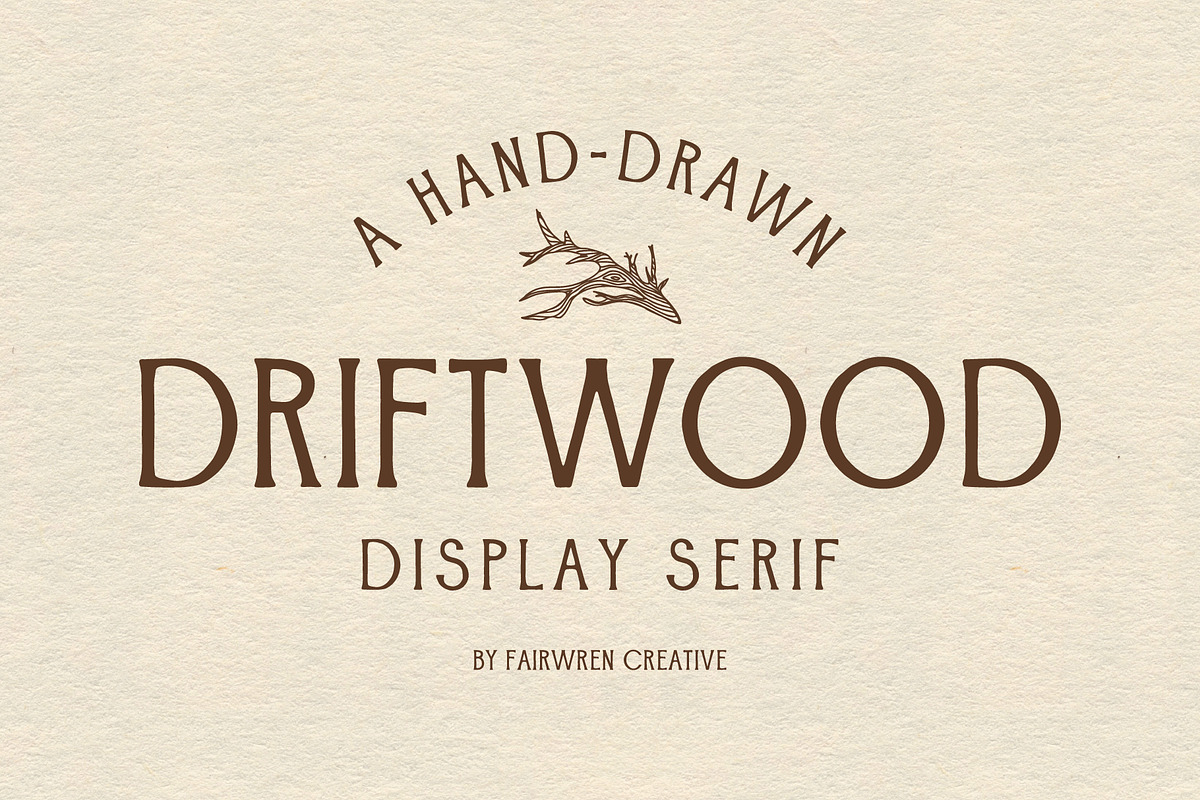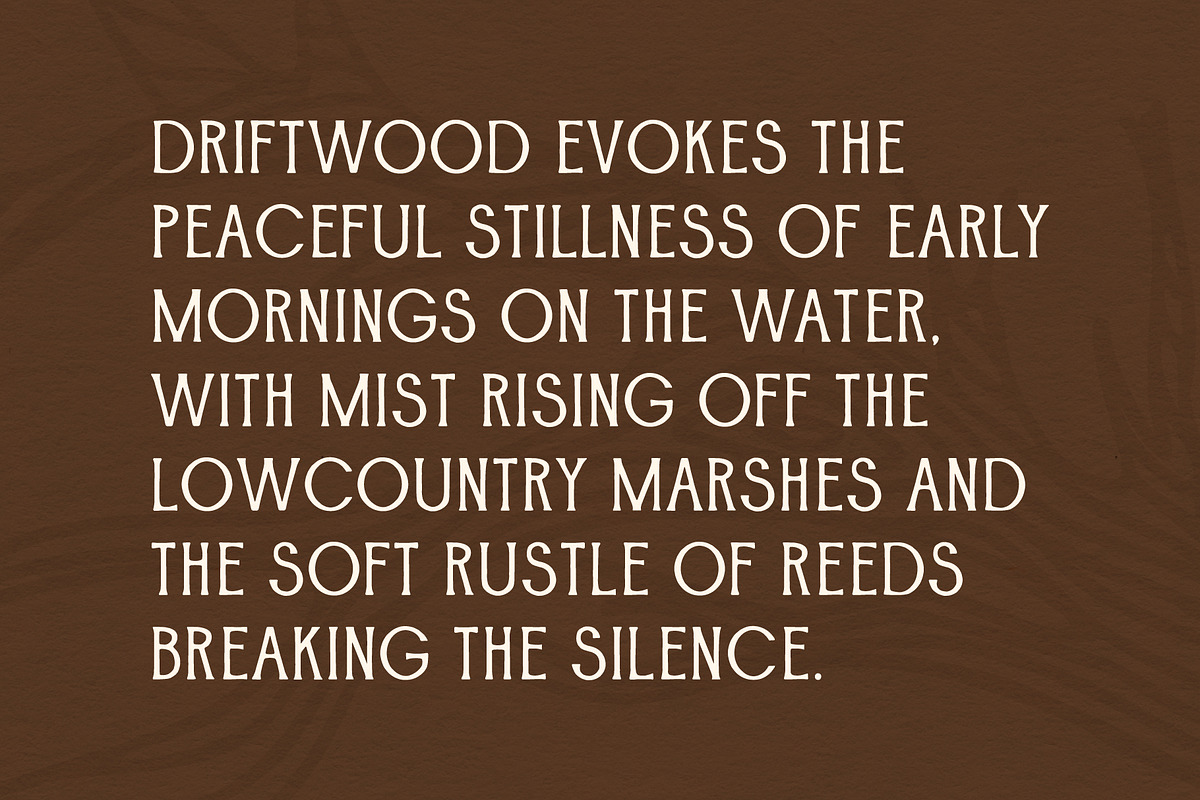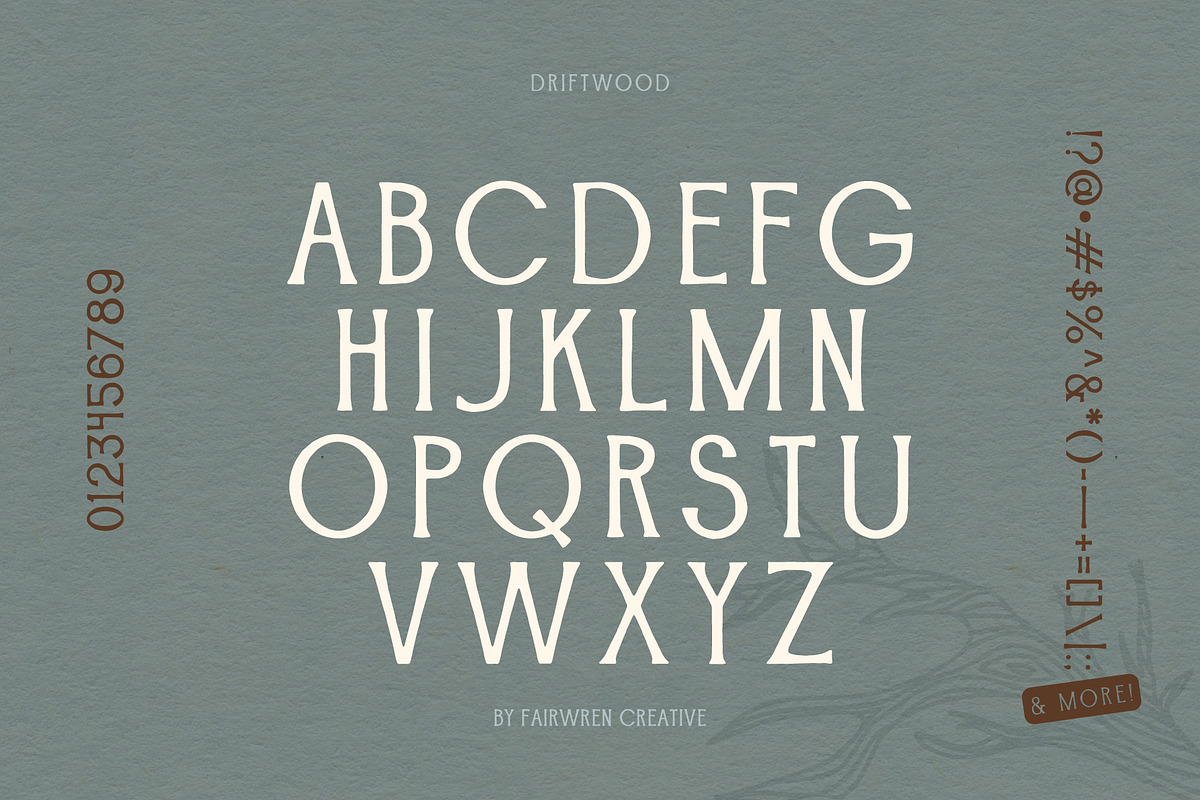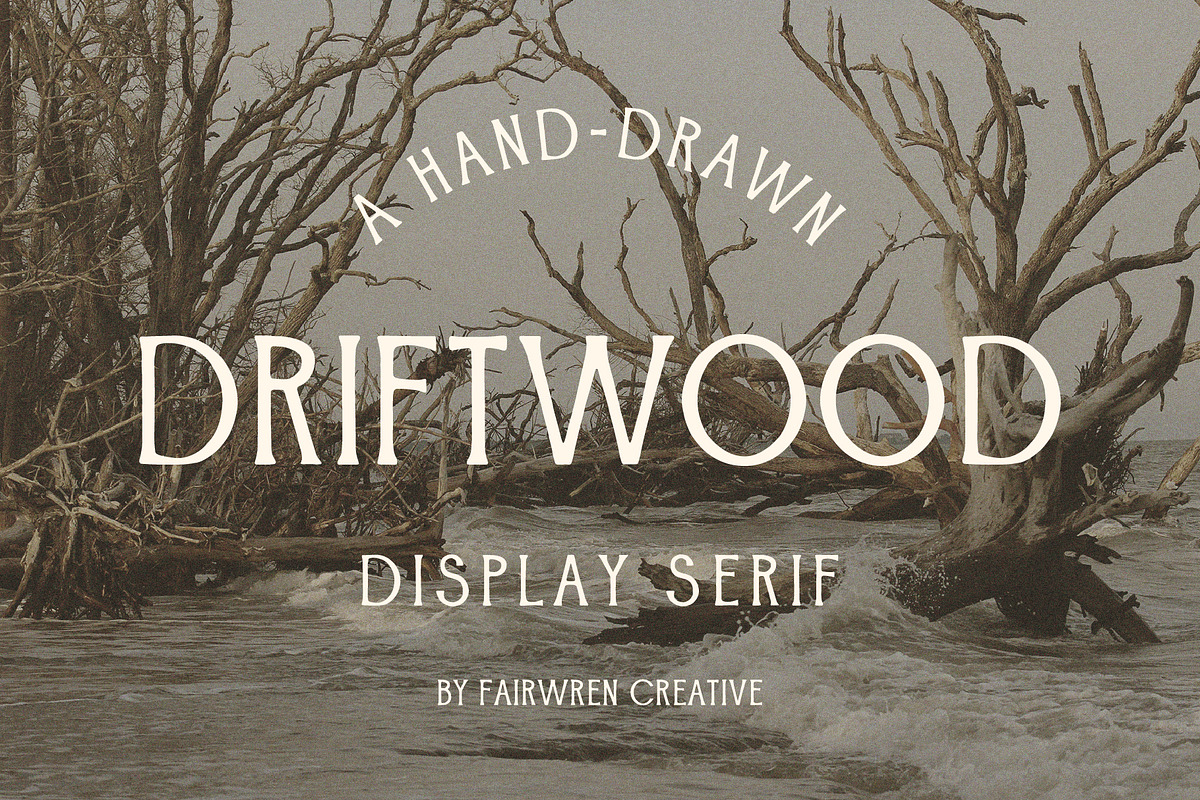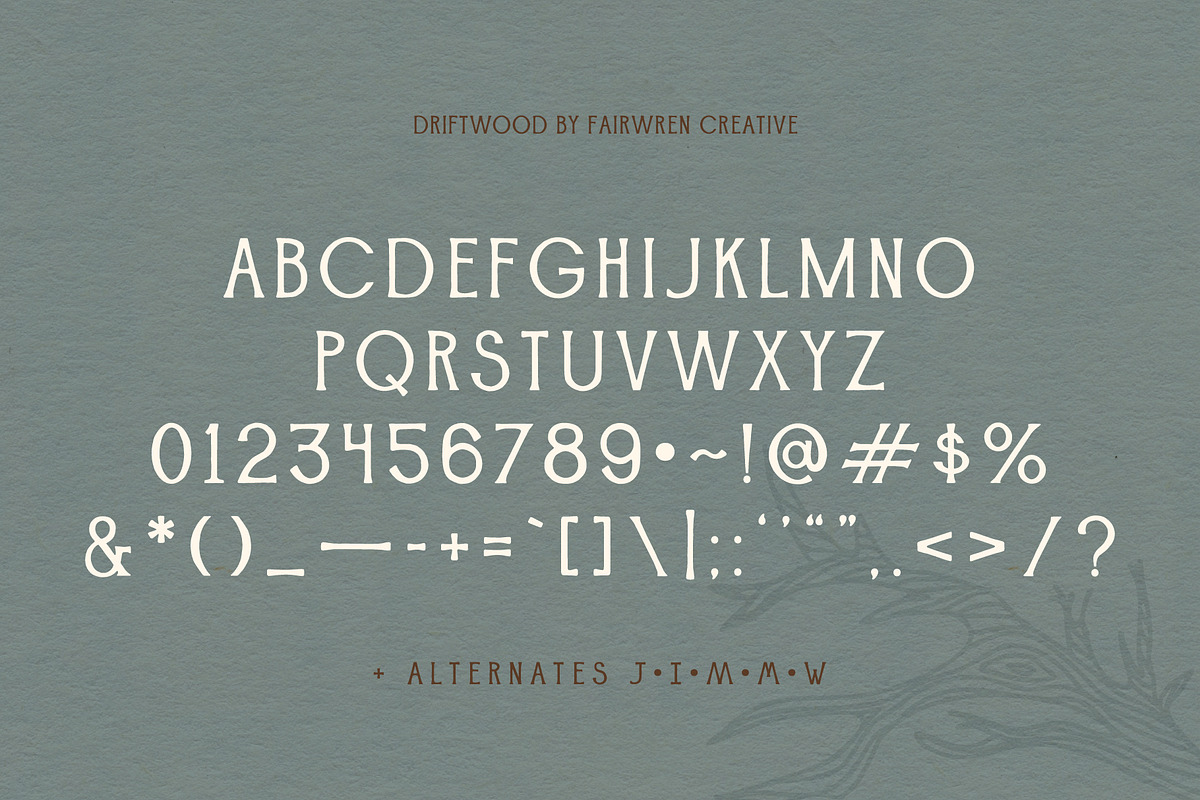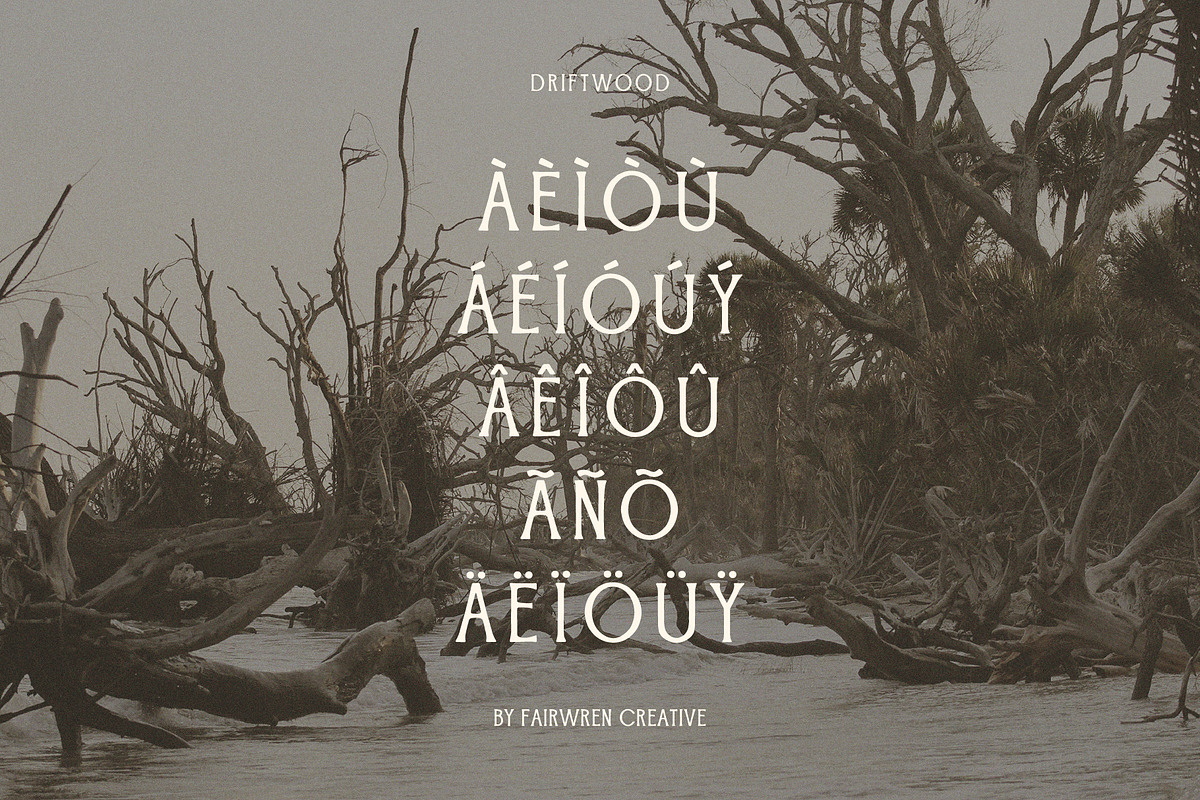
Driftwood
DRIFTWOOD is a hand-drawn, display serif inspired by the rugged beauty of the coast, weathered driftwood, and Lowcountry marshlands. Perfect for creating eye-catching headlines, logos, and anything that needs a touch of coastal adventure.